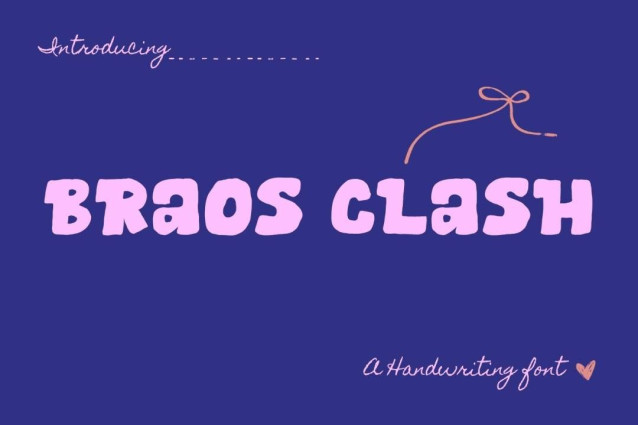
Braos Clash Font
Braos Clash Font is a simple and modern display font suitable for quotes, logos, headings, titles, and many more. Use it on any of your creative projects, and your designs will become outstanding!